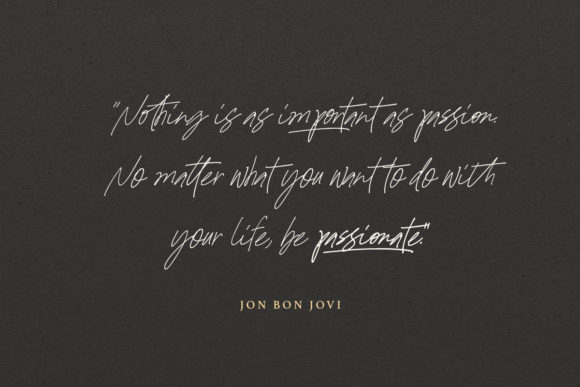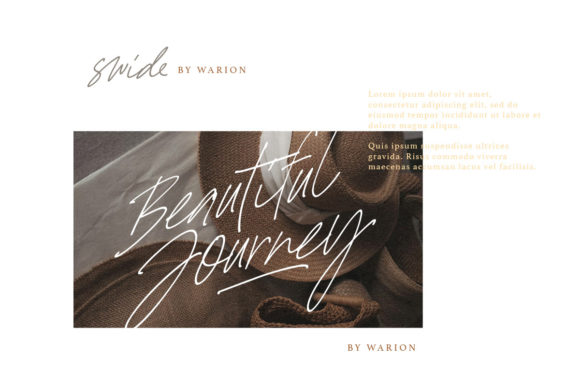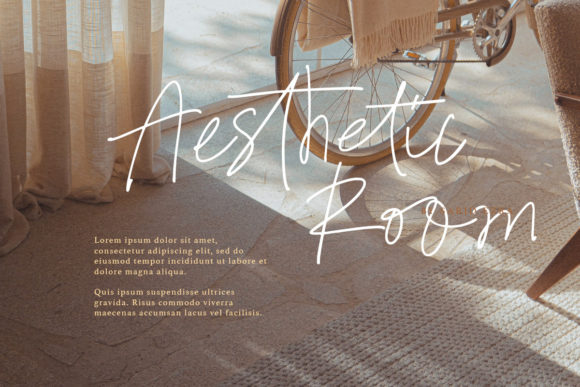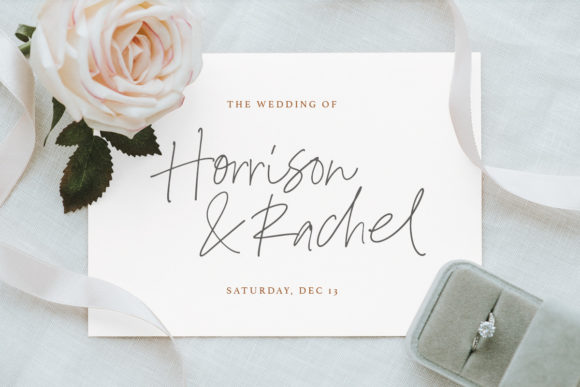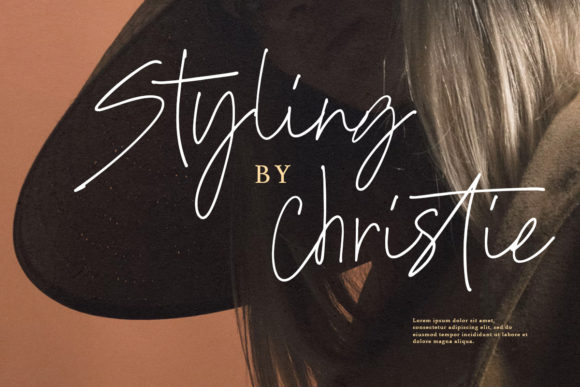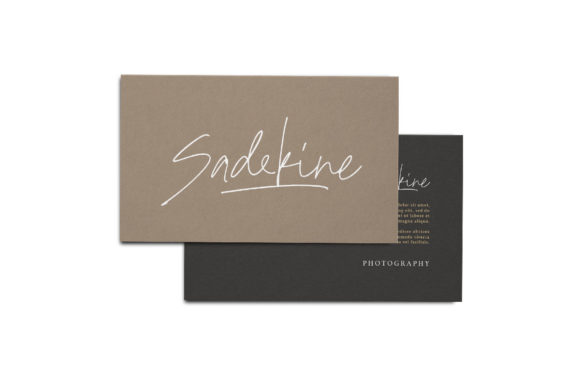
Enter Another Passion Font, a stunning script font that embodies the essence of luxury and elegance. With its delicate curves and refined lines, this font is sure to elevate any design project to new heights. Whether you’re creating a wedding invitation, a luxury brochure, or a high-end website, Another Passion Font is the perfect companion to help you achieve your design goals.
Another Passion Font Key Features
- Unique Characteristics: Another Passion Font features a unique blend of elegance and sophistication, with intricate details and ornate flourishes that set it apart from more traditional fonts.
- Style Variations: Another Passion Font includes multiple style variations, including Regular, Italic, Bold, and Bold Italic, allowing designers to create a range of visual effects and moods.
Another Passion Font Review
Overall, I’m fairly impressed with the Another Passion Font. Here are some things that stood out to me:
- ✨ The font’s unique blend of elegant and quirky features makes it perfect for creative projects, like magazine titles or social media graphics.
- ✨ Another Passion Font’s extensive language support and multiple font weights are also a huge plus, making it a versatile choice for designers.
- ✨ The font’s high-quality rendering on both screens and print materials is another strong point.
- ⚠️ The font’s readability can be an issue in smaller sizes or when used in environments with low contrast.
- ⚠️ Another Passion Font may not be the best choice for body text or large blocks of text, due to its distinctive and sometimes distracting letterforms.
Overall, I think Another Passion Font is a great addition to any designer’s toolkit. While it may have some limitations, its unique charm and versatility make it a great choice for the right project.
For optimal results, use Another Passion Font with bold or italic text to add emphasis.
Combine Another Passion Font with other fonts to create a unique and eye-catching design.
Use Another Passion Font for:
Brand logos and identities
Marketing materials, such as flyers and brochures
Photography captions and titles
Compared to Another Passion Font, Pacifico has a more refined and polished look, making it suitable for high-end designs. While Another Passion Font is more playful and casual, Pacifico is ideal for more formal projects.
Compared to Another Passion Font, Great Vibes has a more dynamic and expressive feel, making it ideal for projects that need to convey a sense of excitement and energy. While Another Passion Font is more laid-back and casual, Great Vibes is perfect for projects that require a more vibrant and engaging tone.